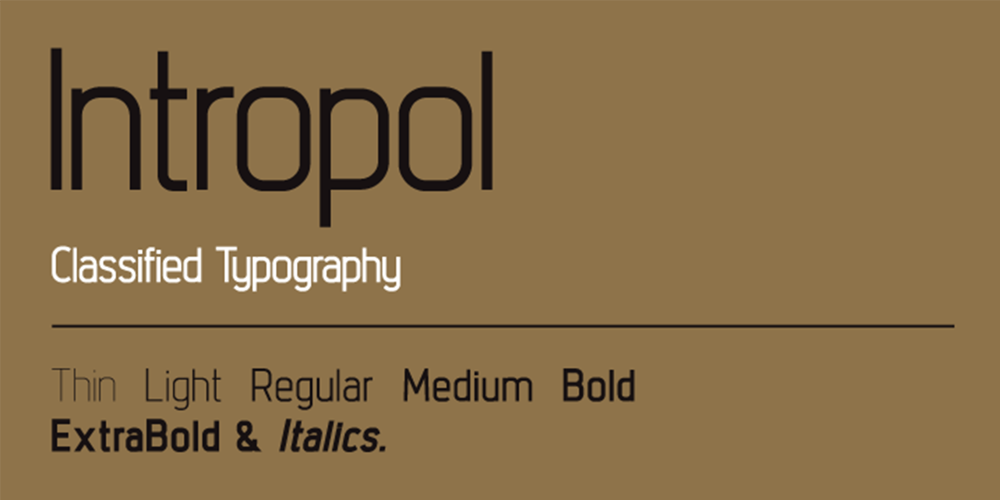
Intropol
Intropol font
Intropol Font Family was designed by Jonathan Hill and published by The Northern Block. Intropol contains 12 styles and family package options. A modern journalistic style typeface. The subtle condensed characters create great economy of space best suited to brochure, editorial and magazine layouts. Also using the contrasting weights you can add great dimension across headline and body copy. Details include 6 weights with italics, an extended European character set, manually edited kerning and Euro symbol.